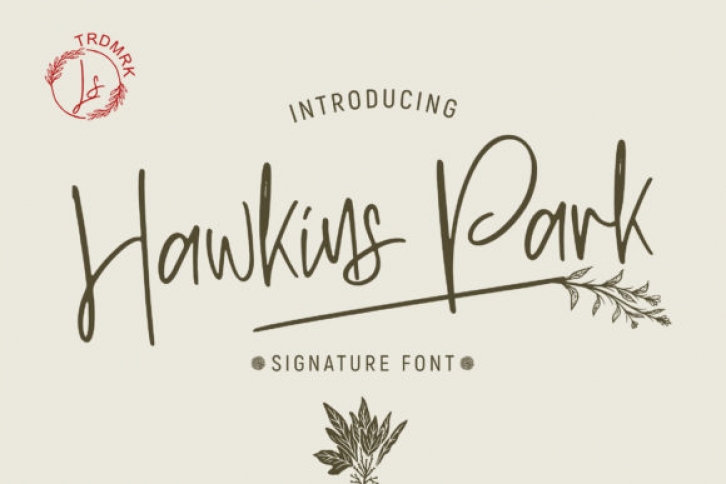
Hawkins Park is an exquisite handwritten font, masterfully designed to become a true favorite. It is the best choice for creating eye catching logos, branding and quotes. Every letter has a unique and beautiful touch, which will make your design come alive!